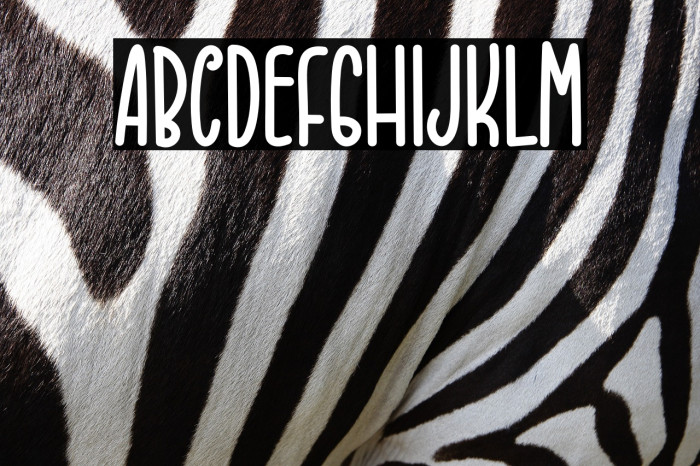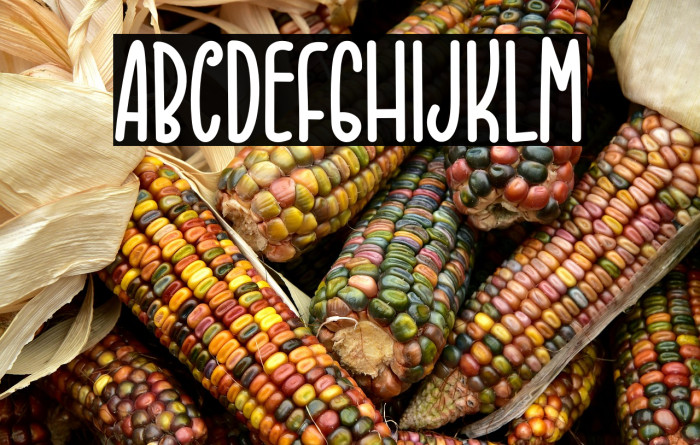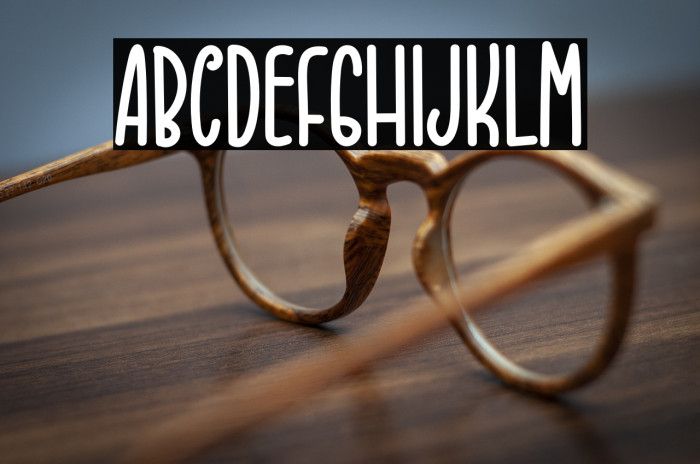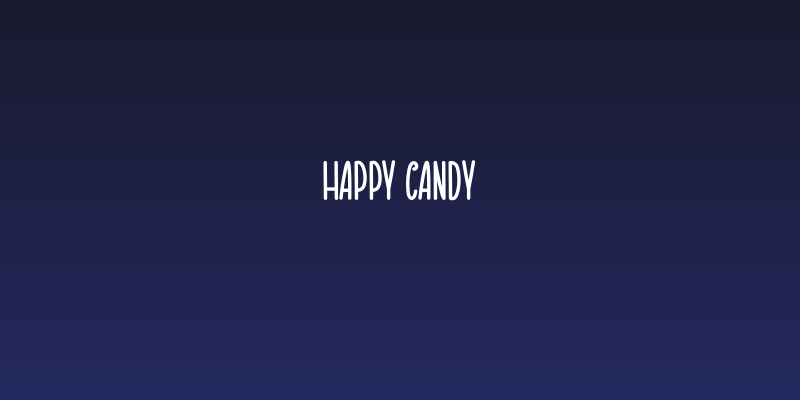
Happy Candy Font
Happy Candy Description
This playful and whimsical font features rounded, elongated characters with a smooth, flowing style. The letters are evenly spaced, creating a harmonious and inviting appearance. The uppercase and lowercase letters maintain a consistent height, giving the font a uniform look. The numbers and special characters are designed to match the overall style, ensuring a cohesive appearance across all text. This font's friendly and approachable design makes it ideal for projects that aim to convey a sense of fun and creativity.
| Overall Style | Playful |
| Proposed Projects | Ideal for children's books, playful branding, party invitations, and creative posters. |